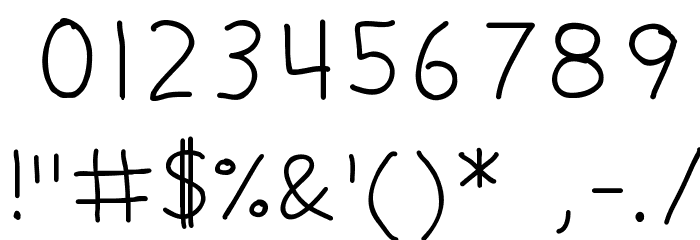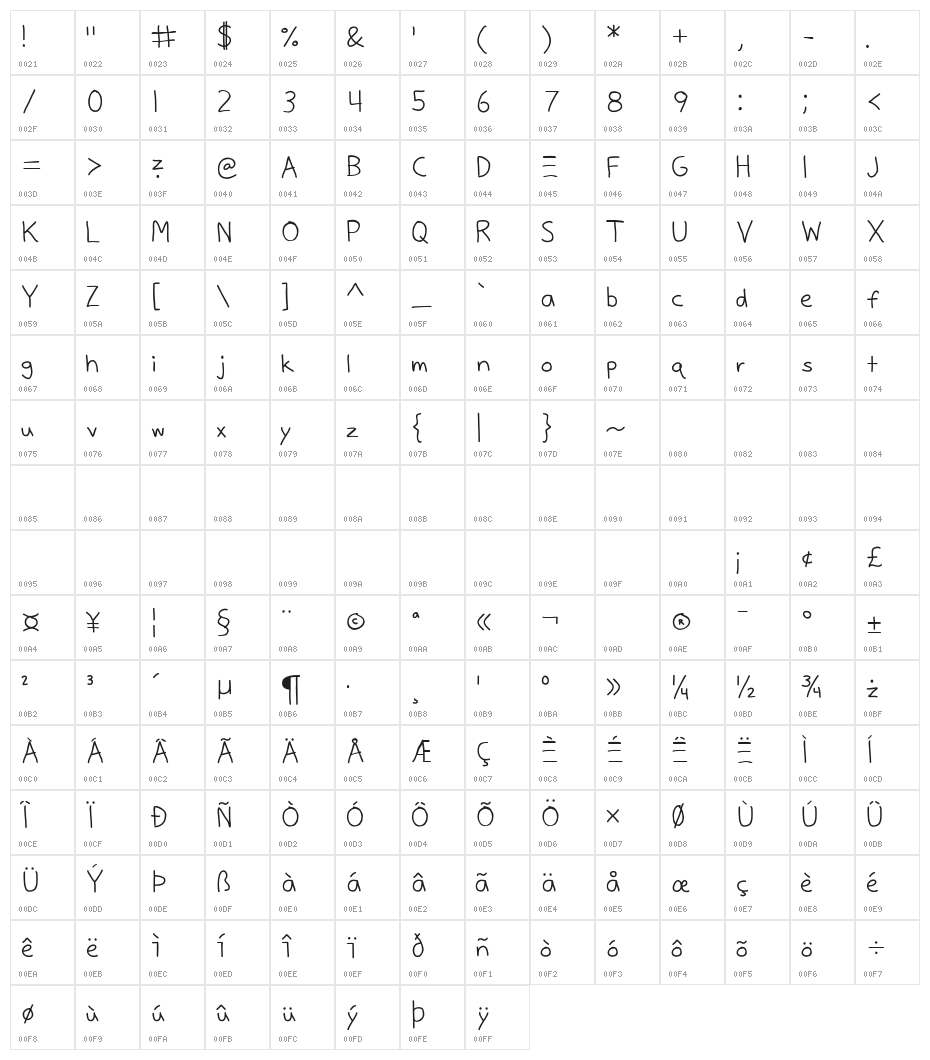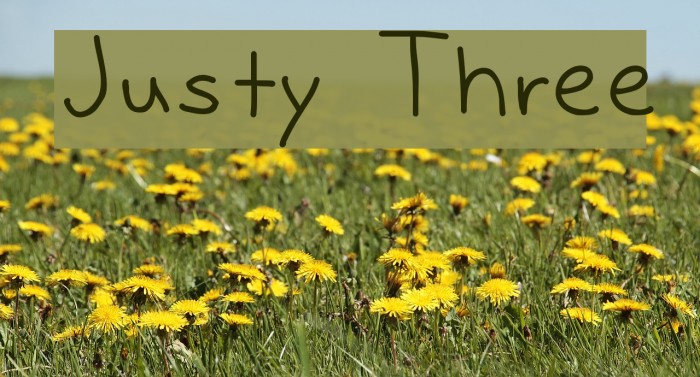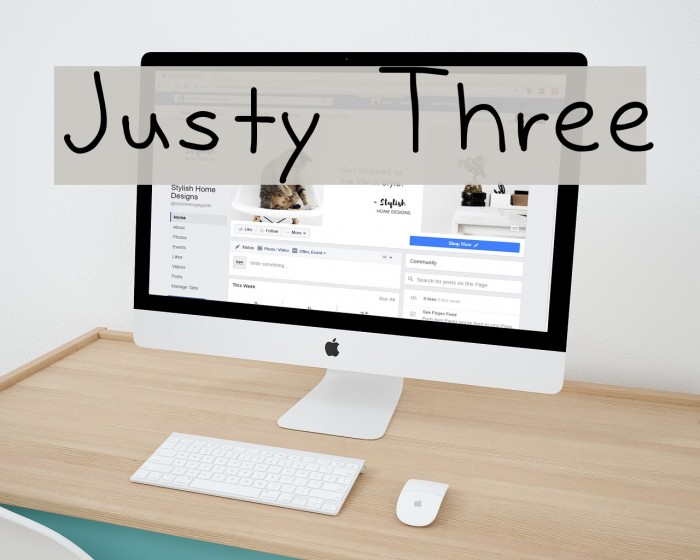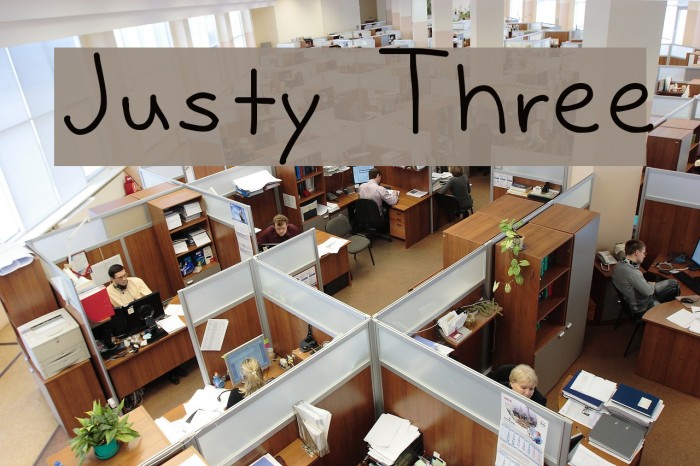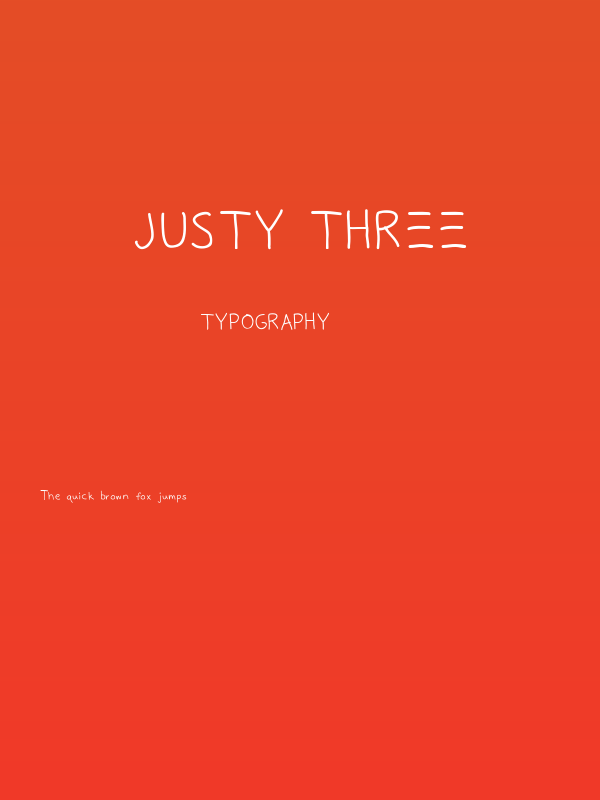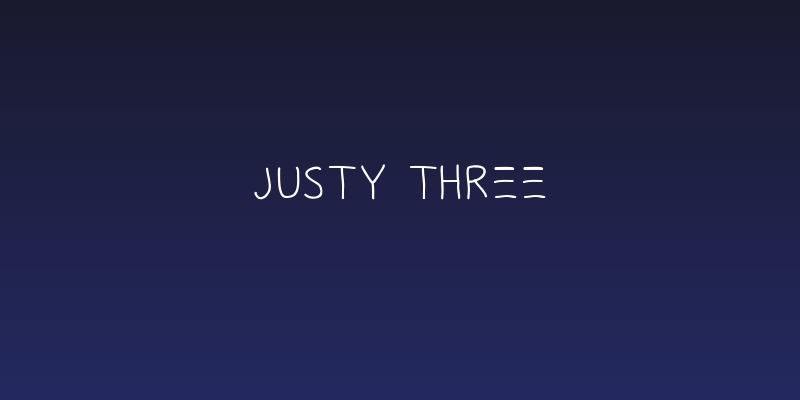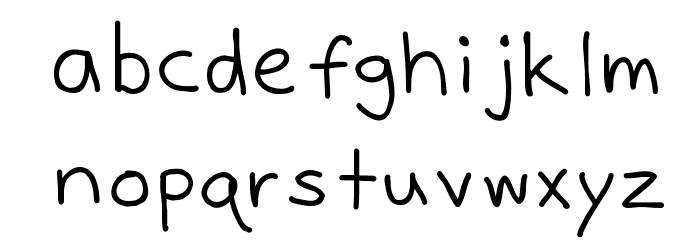
Justy Three Font
Justy Three Description
This font features a playful and informal handwritten style, characterized by its irregular strokes and casual appearance. The letters are slightly uneven, giving it a charming and approachable feel. The uppercase and lowercase letters maintain a consistent style, with rounded edges and a friendly demeanor. Numbers and special characters follow the same playful design, making it versatile for various uses. The overall appearance is reminiscent of a child's handwriting, which adds a touch of whimsy and creativity.